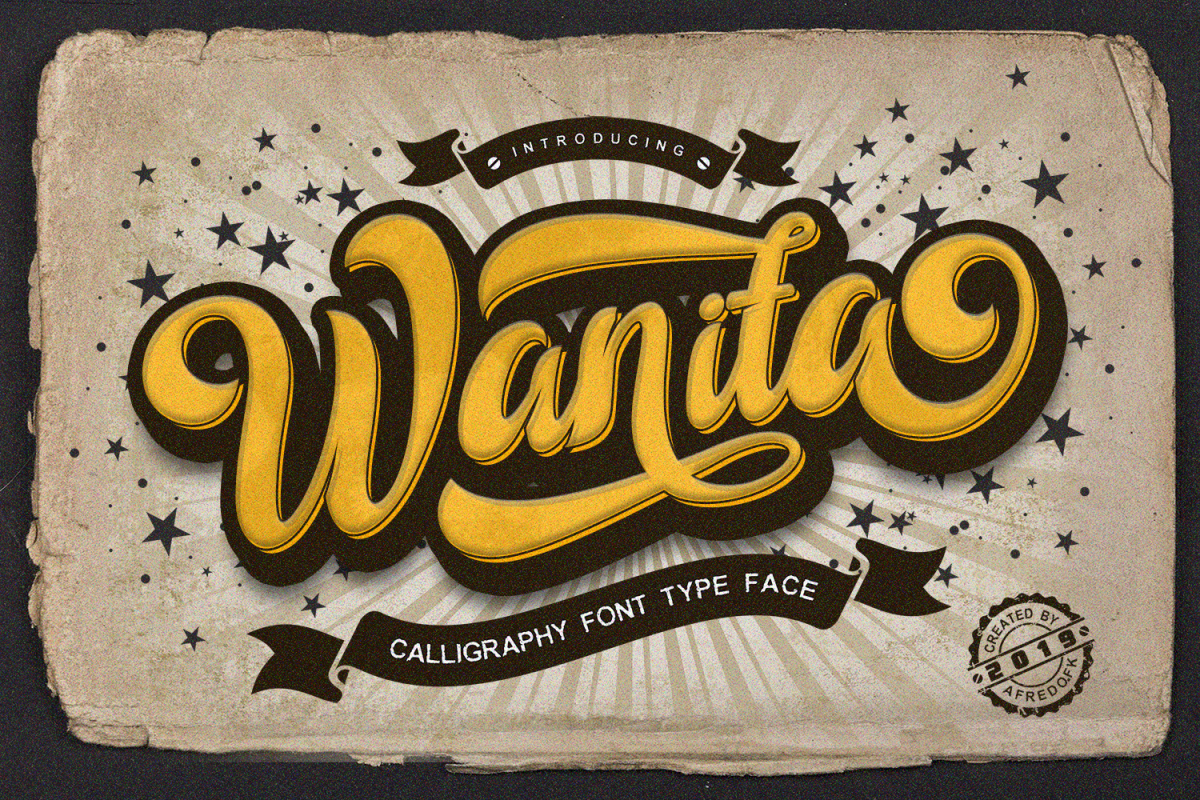
Wanita
Wanita a new fresh & modern script with a
handmade calligraphy style, decorative characters and a dancing
baseline! So beautiful on invitation like greeting cards, branding
materials, business cards, quotes, posters, logo and more!!
The alternative
characters were divided into several Open Type features such as Swash,
Stylistic Sets, Stylistic Alternates, Contextual Alternates. The Open
Wanita :
Uppercase & Lowercase International Languange & Symbols
Support Punctuation & Number PUA Unicode Range Standard Stylistic
Alternates Stylistic Set 1-10 Character Variant Contextual.